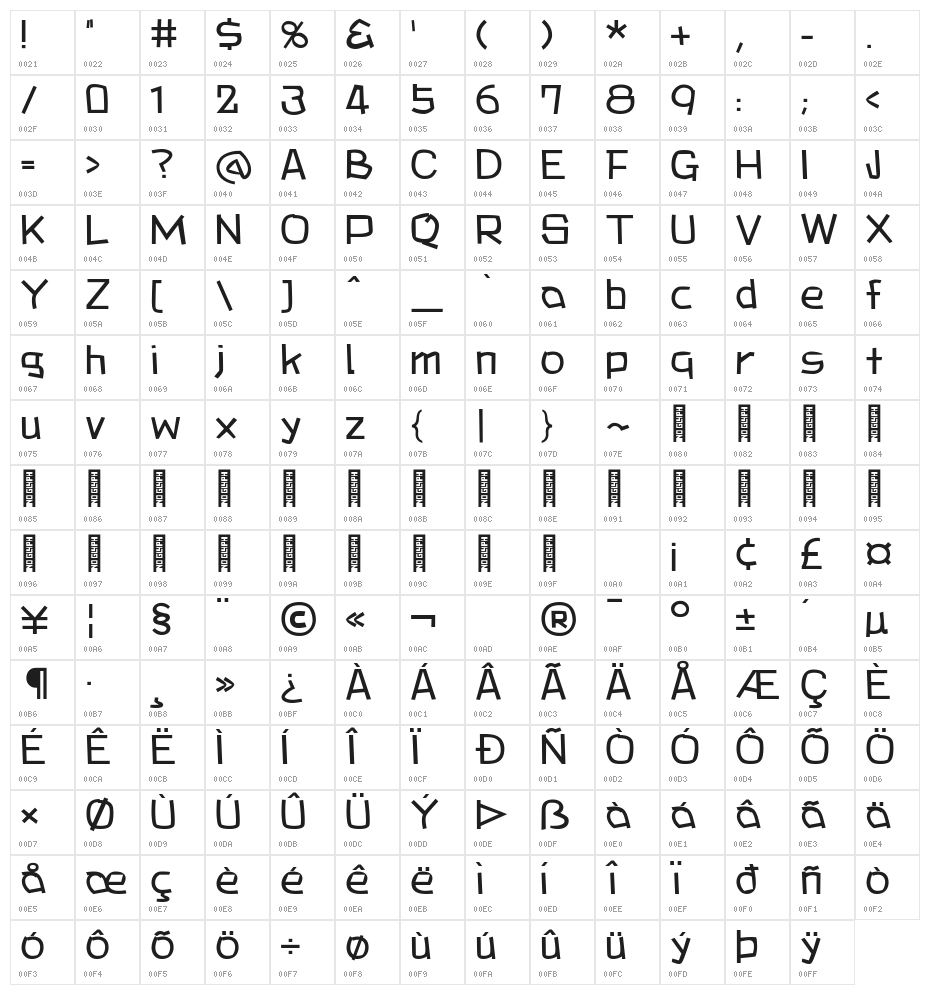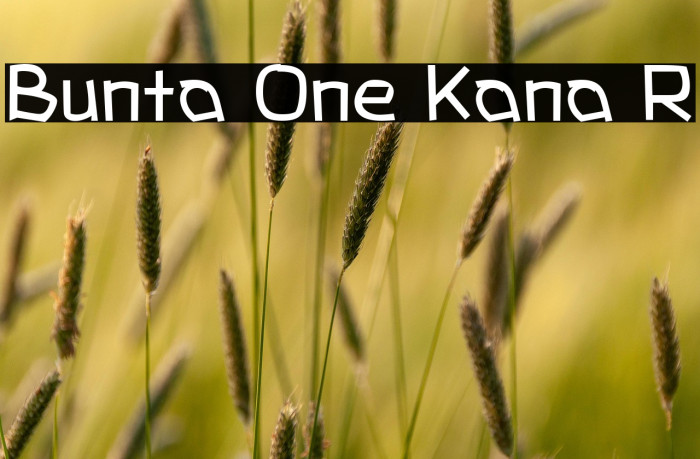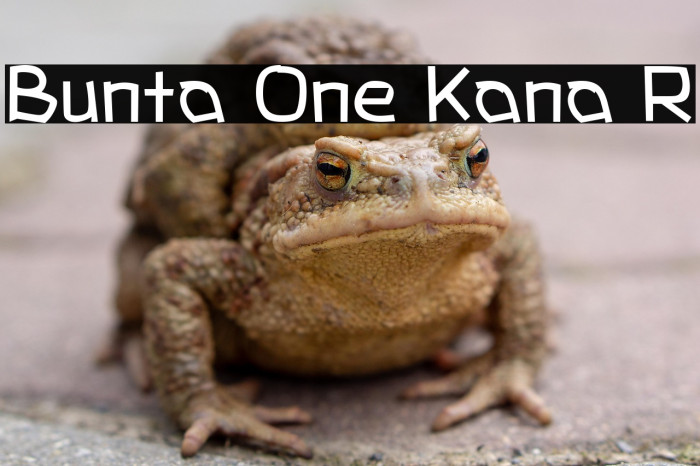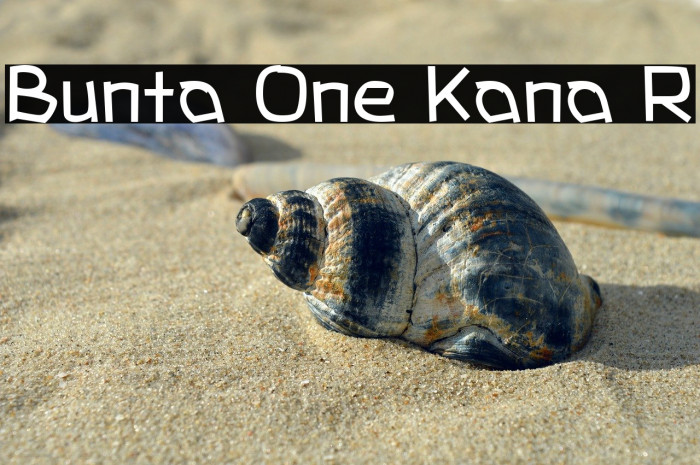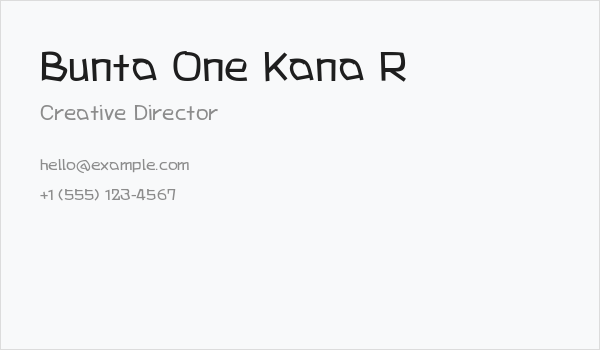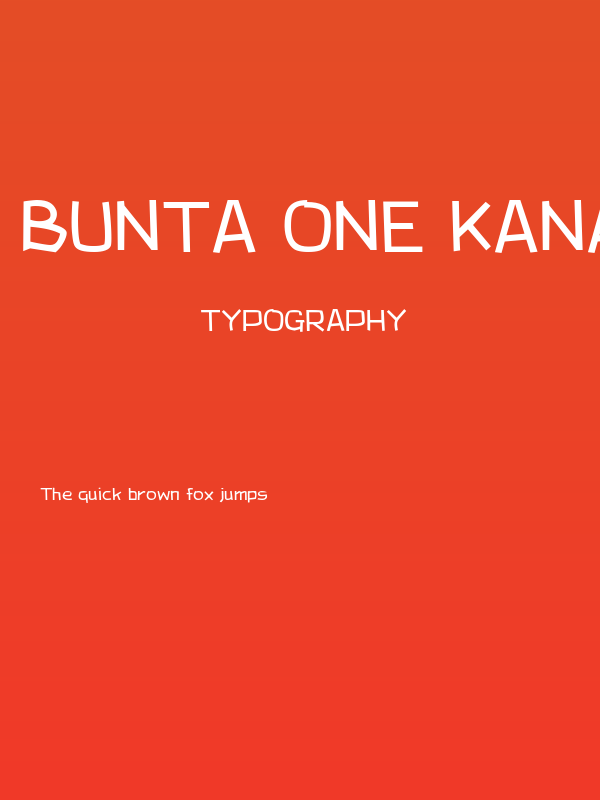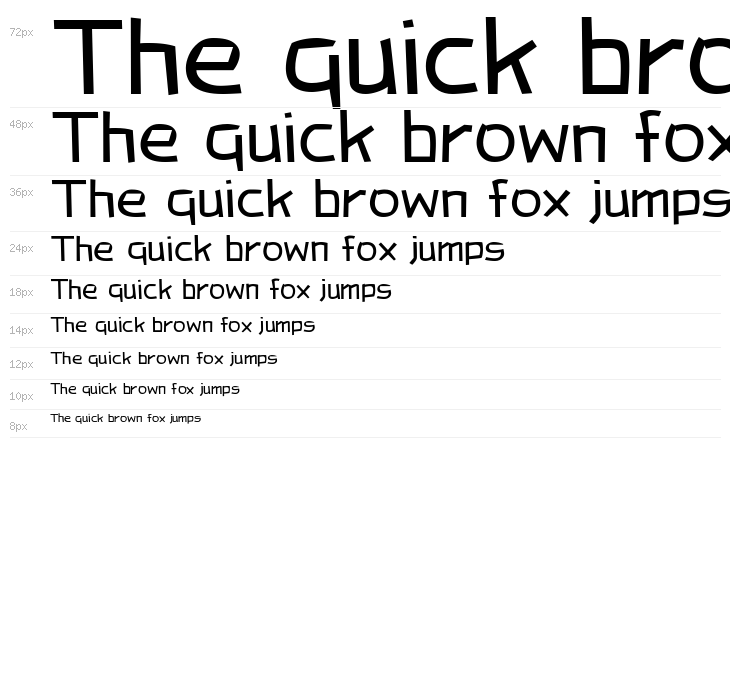
Bunta One Kana R Font
Bunta One Kana R Description
This font features a playful and slightly irregular style, characterized by its angular and geometric letterforms. The uppercase letters have a distinct, quirky appearance with varying stroke widths, giving them a dynamic and energetic feel. The lowercase letters maintain a similar style, with some characters having unique, unexpected angles that add to the font's charm. The numerals are bold and consistent with the overall design, making them easily readable. Special characters are well-integrated, maintaining the font's distinctive personality. This font's unique style makes it suitable for creative and informal projects.
| Overall Style | Playful, Quirky, Creative |
| Proposed Projects | Ideal for children's books, playful branding, creative posters, and informal invitations. |